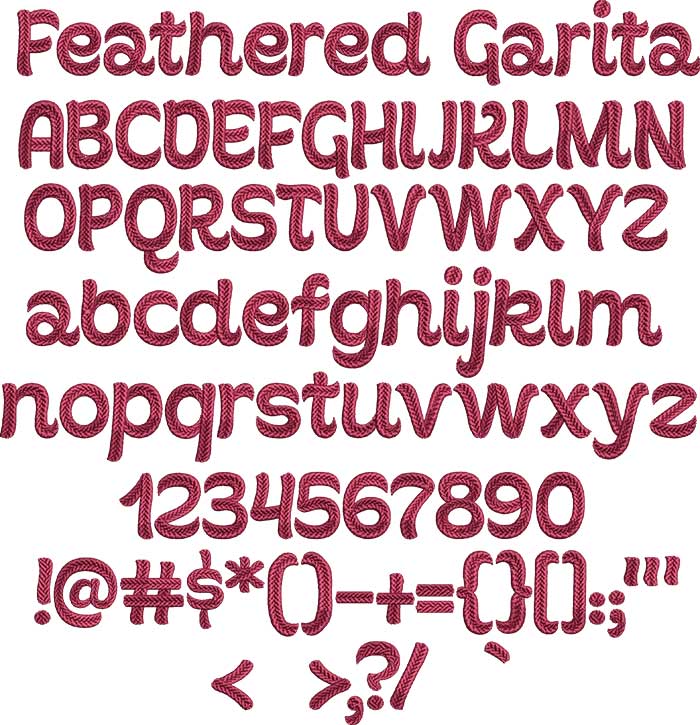
BX Embroidery Font: Feathered Garita
BX Embroidery Font: Feathered Garita (3 sizes) is a patterned, bold, casual sans serif machine embroidery font that includes A-Z, a-z, 0-9 and punctuation.
BX Embroidery Font: Feathered Garita (3 sizes) is a patterned, bold, casual sans serif machine embroidery font that includes A-Z, a-z, 0-9 and the following punctuation: `!@#$%&*()-+={}[]|:;”‘<>,.?/ (91 total characters per size).
Each character in this alphabet is individually manually digitized; we do not use a TrueType to Stitches conversion utility to create our fonts. Additionally, stitch attributes such as stitch type, density, compensation, and underlay are optimized for each size available. Choose the size closest to what you need. Shrinking the smallest size is not recommended.